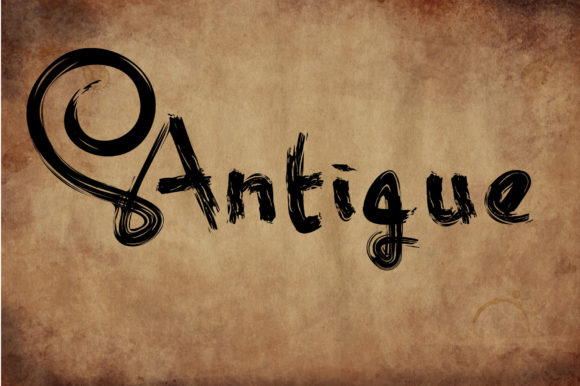
Discover the Charm of Antique Font: A Timeless Brushed Display Font
Are you a designer or crafter looking for a unique and original font to elevate your creative projects? Look no further than Antique Font, a neat brushed display font that is sure to capture the essence of your crafty ideas. With its distinctive look and feel, Antique Font is perfect for a wide range of applications, from letterheads and titles to stationery and more.
The Unique Appeal of Antique Font
Antique Font boasts an original look that is both nostalgic and modern. Its brushed texture gives it a handcrafted feel, evoking memories of traditional craftsmanship and attention to detail. At the same time, its clean lines and elegant curves make it a versatile font that can be used in a variety of contexts. Whether you’re creating a vintage-inspired design or a modern masterpiece, Antique Font is sure to add a touch of sophistication and charm.
Perfect for Crafty Ideas
Antique Font is a font that celebrates creativity and individuality. Its unique look and feel make it perfect for crafty ideas that require a personal touch. Here are just a few examples of how you can use Antique Font to bring your projects to life:
- Letterheads and titles: Add a touch of elegance and sophistication to your letterheads and titles with Antique Font. Its brushed texture gives it a distinctive look that is sure to make your designs stand out.
- Stationery: Create beautiful stationery sets with Antique Font. From greeting cards to invitations, this font is perfect for adding a personal touch to your correspondence.
- Signage: Use Antique Font to create eye-catching signs that are sure to grab attention. Its bold and elegant curves make it perfect for signage that requires a touch of sophistication.
- Packaging: Add a touch of luxury to your packaging with Antique Font. Its unique look and feel make it perfect for high-end packaging designs that require a personal touch.
Why Designers and Crafters Love Antique Font
Antique Font has quickly become a favorite among designers and crafters. Here are just a few reasons why:
- Unique look: Antique Font boasts a unique look that is both nostalgic and modern. Its brushed texture gives it a distinctive feel that is sure to make your designs stand out.
- Versatility: Antique Font is a versatile font that can be used in a variety of contexts. From letterheads and titles to signage and packaging, this font is perfect for a wide range of applications.
- Ease of use: Antique Font is easy to use and pairs well with a variety of other fonts. Its clean lines and elegant curves make it a joy to work with.
- High-quality design: Antique Font is a high-quality font that is designed to deliver exceptional results. Its precision-crafted curves and lines ensure that your designs look professional and polished.
Tips for Using Antique Font
Here are a few tips for getting the most out of Antique Font:
- Experiment with different sizes: Antique Font looks great in a variety of sizes. Experiment with different sizes to find the one that works best for your design.
- Pair with other fonts: Antique Font pairs well with a variety of other fonts. Try pairing it with a sans-serif font for a modern look or a script font for a more elegant feel.
- Use it sparingly: Antique Font is a bold font that can make a big impact. Use it sparingly to add emphasis and create visual interest.
| Author | Designvector10 |
Antique Font is a timeless brushed display font that is perfect for designers and crafters looking for a unique and original look. Its distinctive texture and elegant curves make it a versatile font that can be used in a wide range of applications. Whether you’re creating a vintage-inspired design or a modern masterpiece, Antique Font is sure to add a touch of sophistication and charm. So why wait? Download Antique Font today and discover the charm of this beautiful brushed display font.